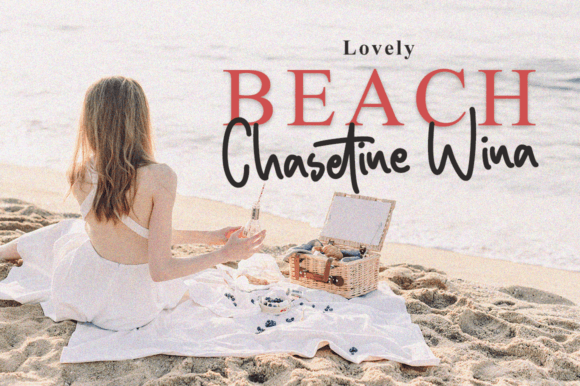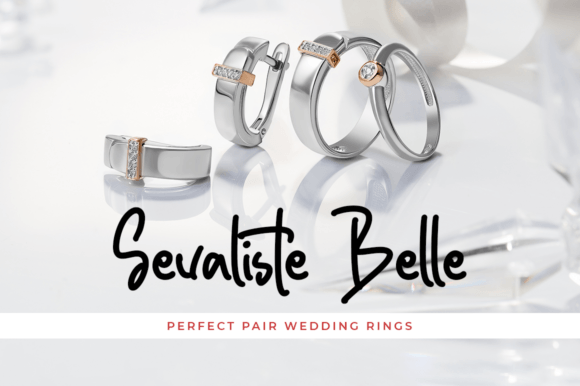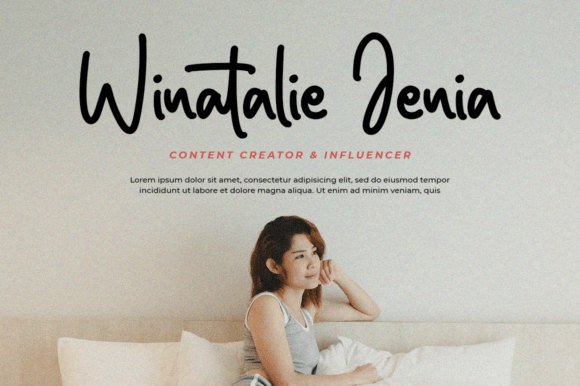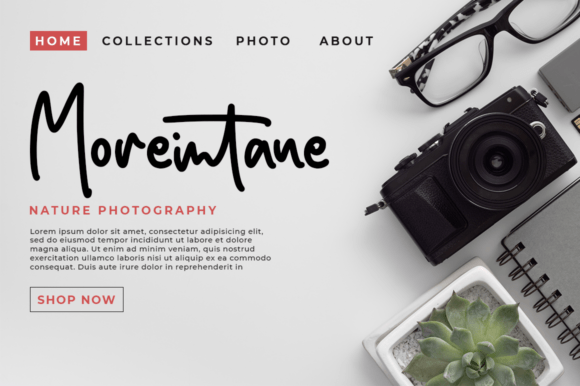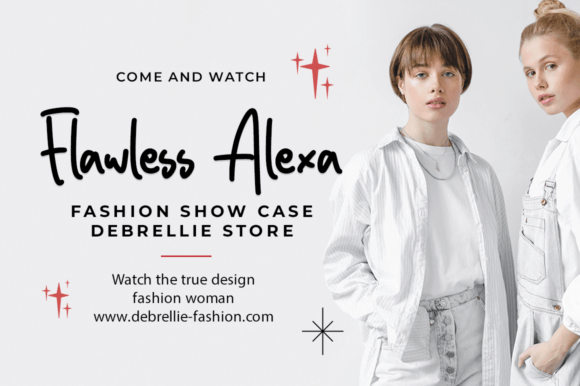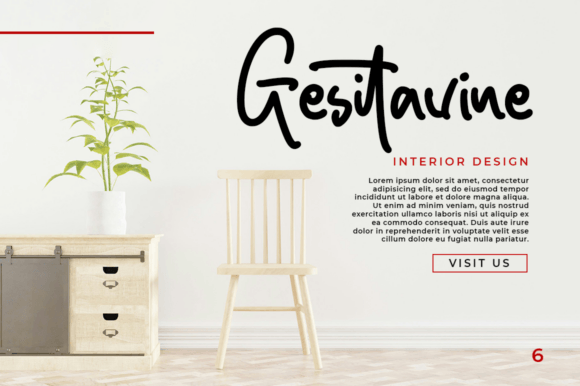
Discover the Timeless Elegance of Besainting Font
Have you ever been stuck in a creative rut, unable to find the perfect font to bring your design to life? You’re browsing through font libraries, scrolling through design inspiration boards, and yet, nothing seems to capture the essence of your vision. That’s when you stumble upon Besainting Font, a bold monoline script font that exudes elegance and sophistication.
Besainting Font is more than just a typeface – it’s a statement piece that adds a touch of refinement to any design project. Whether you’re creating a logo, banner, restaurant menu, or greeting card, this font is sure to make a lasting impression. As a designer, you’ll appreciate the versatility and style that Besainting Font brings to the table, making it a valuable addition to your design arsenal.
Besainting Font Key Features
- Font Family: Besainting is a unique, handwritten font with a distinctive touch.
- Unique Characteristics: Features intricate, hand-drawn letterforms with a touch of elegance and sophistication.
- Language Support: Supports a wide range of languages, including Latin, Greek, and Cyrillic scripts.
Besainting Font Review
I recently had the chance to work with the Besainting Font, and I must say it’s been a unique experience. ✨ One of the things that stood out to me was its quirky, hand-drawn feel. It’s perfect for adding a touch of whimsy to your designs.
Here are some of the things that I liked about the font:
- ✨ Highly customizable – The Besainting Font comes with a wide range of styles and weights, making it easy to find the perfect fit for your project.
- ✨ Great for body text – Despite its playful feel, the font is surprisingly legible, making it a great choice for body text.
- ✨ Unique character set – The font includes a range of special characters and symbols that can add an extra layer of interest to your designs.
However, there are a few limitations to be aware of:
- ⚠️ Limited support for languages other than English – If you need to use the font for multilingual projects, you may find it lacking.
- ⚠️ Not ideal for headlines – While the font is great for body text, it may not be the best choice for headlines, as it can be a bit too playful and distracting.
Overall, I’d say that the Besainting Font is a great choice for designers who want to add a touch of personality to their projects. While it may not be the best choice for every project, it’s definitely worth considering for those that require a more playful feel.
Some tips for getting the most out of Besainting Font include using it for:
– Titles and headings to add a touch of elegance
– Body text to create a cohesive look
– Logos and branding materials to establish a unique identity
– Creative projects to add a whimsical touch